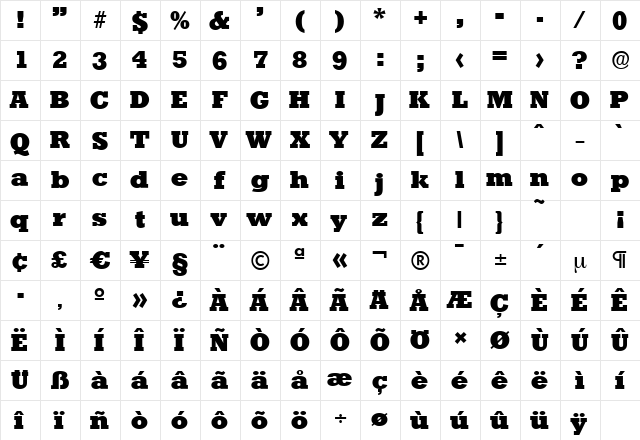
StaffordSerial-Heavy Regular
Design Context for StaffordSerial-Heavy Typeface
StaffordSerial-Heavy offers clean, dependable letterforms without strong stylistic allegiance, making it a practical choice for designers who need flexibility.